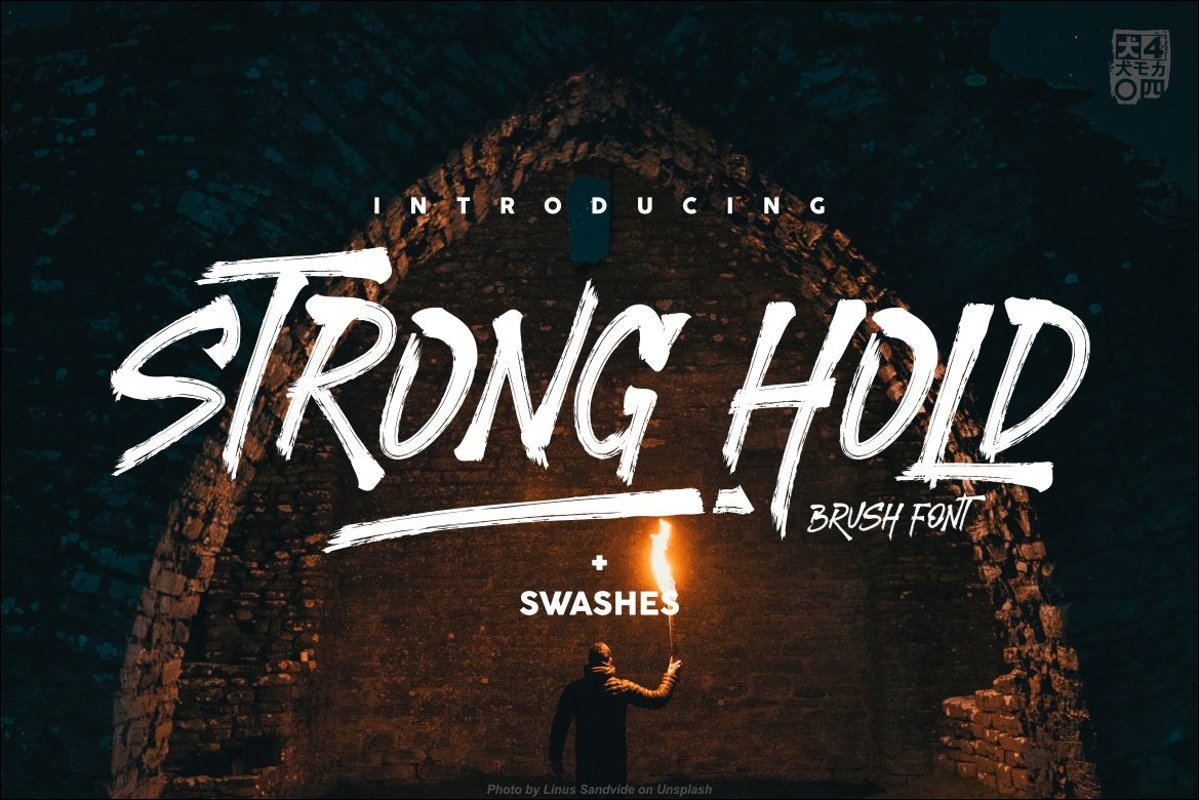
STRONGHOLD Brush font
STRONGHOLDBRUSHFONTSwashes
STRONGHOLD BRUSH FONT-Regular
STRONGHOLD BRUSH FONT,
A handmade handwritten Brush typeface with unique glyphs and Powerfull.
STRONGHOLD BRUSH FONT playfull will look so good on your poster, Blog, Website,
tshirt and any other fun projects you are working on.
- Unique glyphs
- Multilingual Character
- UPPERCASE
- Numeric
- Symbol
- Punctuation Character